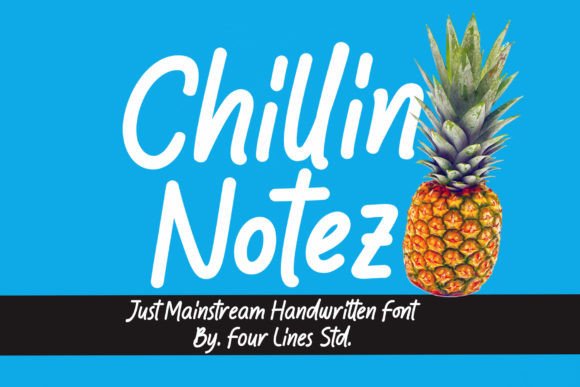
Meet Chillin Notez, the font that will transform your creative projects into captivating masterpieces. This exquisite script font, brought to you by Fourlines.design, is the perfect choice for school posters, adding a touch of elegance and sophistication to your designs.
Immerse yourself in the world of Chillin Notez, where flowing lines dance across the page, creating a visual symphony that captures attention. This contemporary font exudes a cool and collected vibe, making it the ideal companion for conveying messages that resonate with your audience.
With Chillin Notez, your school posters will shine brighter than ever before. Its refined aesthetics will elevate your designs, grabbing the attention of students and teachers alike. Let your posters speak volumes, conveying important announcements, inspiring messages, and educational information in a style that leaves a lasting impression.
But Chillin Notez is not limited to the classroom. Unleash its creative potential in advertisements, social media graphics, and any project that demands a touch of sophistication. This versatile font adapts seamlessly to various design styles, bringing a cohesive and polished look to your work.
Embrace Chillin Notez and embark on a creative journey where your imagination knows no bounds. Its effortless flow and captivating charm will transform your designs into works of art, leaving your audience captivated and inspired.
Don't settle for ordinary fonts. Choose Chillin Notez and unlock a world of creative possibilities. Let your designs flourish with the beauty and elegance of this extraordinary script font. The power to captivate is at your fingertips – download Chillin Notez today and experience the difference!